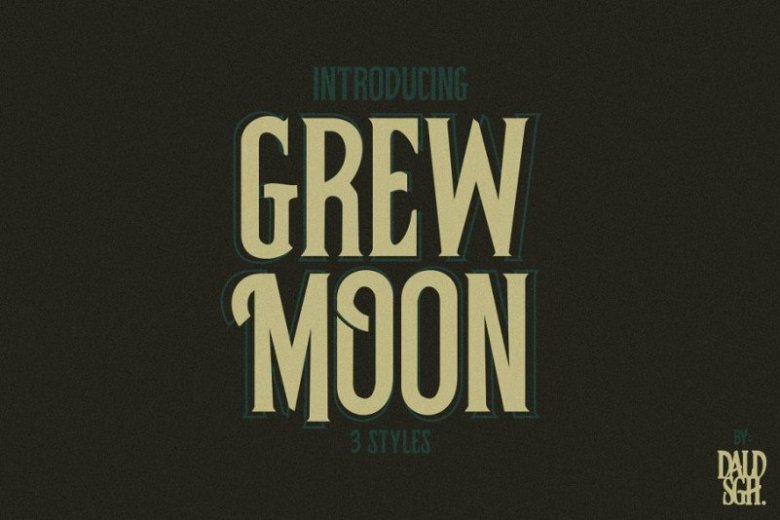
Grewmoon Vintage Font
Say Hello Guy’s. Thank you for looking Grewmoon Font. Introducing vintage display font, it’s a classic look label typeface. It’s made in strong and dynamic label style. Font is perfect for any labels design of whiskey, rum or brandy. Grewmoon Vintage was inspired by vintage art.
A beautiful display font with alternate character. Very suitable to create a design for magazines, packaging, branding , website header, posters, greeting cards, letterhead, and many other creative projects.